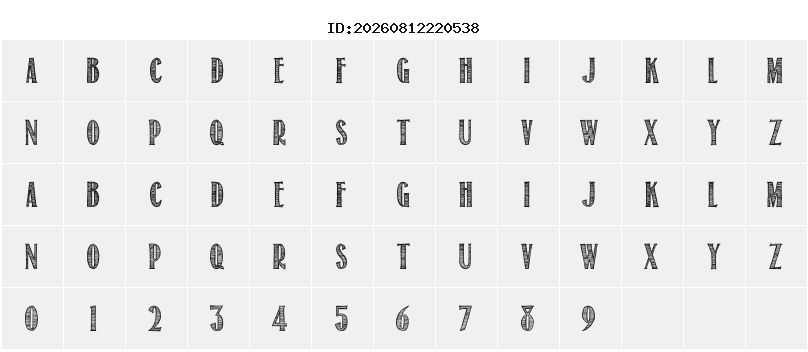
• Font Name: Return To Sender
• Designer: Tom Kolter
About Return To Sender.ttf
Return To Sender.ttf is a modern, elegant sans-serif font designed for ultimate readability and visual harmony. Perfect for branding, headlines, web design, and print materials.